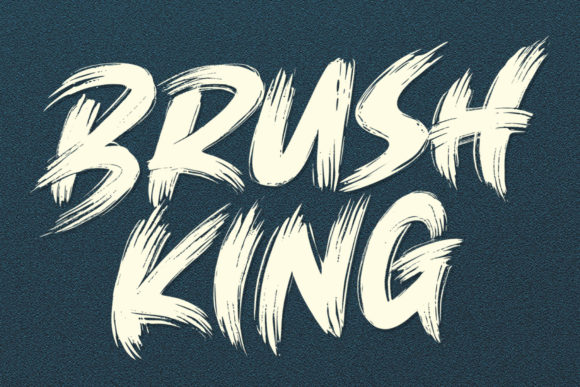
Unleash Your Creativity with Brush King Font: The Ultimate Brush Font for Energetic Designs
Are you looking for a font that can add a burst of energy to your designs? Look no further than Brush King Font, a supercharged brush font that is bursting with creativity and life. With its extra attention to quick strokes and sharp details, Brush King Font is the perfect choice for designers who want to make a statement.
What is Brush King Font?
Brush King Font is a type of brush font that is designed to mimic the look and feel of hand-painted brushstrokes. It features a unique and energetic style that is perfect for creating bold and eye-catching designs. With its sharp details and quick strokes, Brush King Font is ideal for use in a variety of design projects, from posters and flyers to logos and branding materials.
Key Features of Brush King Font
- Extra attention to quick strokes: Brush King Font is designed to capture the energy and spontaneity of quick brushstrokes, giving your designs a dynamic and playful feel.
- Sharp details: With its sharp details and crisp lines, Brush King Font is perfect for creating designs that require a high level of precision and clarity.
- Supercharged brush font: Brush King Font is a supercharged brush font that is bursting with energy and creativity, making it perfect for designers who want to make a statement.
Uses of Brush King Font
Brush King Font is a versatile font that can be used in a variety of design projects, including:
- Posters and flyers: Brush King Font is perfect for creating bold and eye-catching posters and flyers that require a high level of energy and creativity.
- Logos and branding materials: With its unique and energetic style, Brush King Font is ideal for use in logos and branding materials that require a high level of precision and clarity.
- Social media graphics: Brush King Font is perfect for creating social media graphics that require a high level of energy and creativity, such as Facebook posts and Instagram stories.
Benefits of Using Brush King Font
There are many benefits to using Brush King Font in your designs, including:
- Increased energy and creativity: Brush King Font is a supercharged brush font that is bursting with energy and creativity, making it perfect for designers who want to make a statement.
- Improved precision and clarity: With its sharp details and crisp lines, Brush King Font is perfect for creating designs that require a high level of precision and clarity.
- Unique and eye-catching designs: Brush King Font is a unique and energetic font that can help you create designs that stand out from the crowd.
Tips for Using Brush King Font
Here are some tips for using Brush King Font in your designs:
- Use it sparingly: Brush King Font is a bold and energetic font, so it’s best to use it sparingly to avoid overwhelming your designs.
- Experiment with different colors: Brush King Font looks great in a variety of colors, so don’t be afraid to experiment and find the perfect color for your design.
- Pair it with other fonts: Brush King Font can be paired with other fonts to create a unique and eye-catching design.
In conclusion, Brush King Font is a supercharged brush font that is bursting with energy and creativity. With its extra attention to quick strokes and sharp details, Brush King Font is the perfect choice for designers who want to make a statement. Whether you’re creating posters and flyers, logos and branding materials, or social media graphics, Brush King Font is a versatile font that can help you create unique and eye-catching designs.
- What is Brush King Font?: Brush King Font is a supercharged brush font that is bursting with energy and creativity.
- What are the key features of Brush King Font?: The key features of Brush King Font include extra attention to quick strokes, sharp details, and a supercharged brush font.
- What are some uses of Brush King Font?: Brush King Font can be used in a variety of design projects, including posters and flyers, logos and branding materials, and social media graphics.